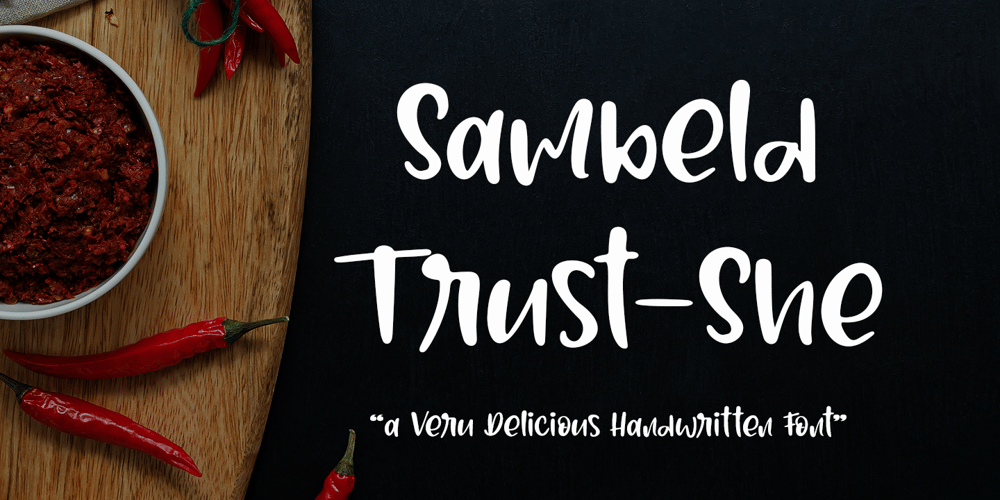
Sambeld Trust She Font Family was designed by Sarwo Edhi Prayitno and published by Haksen. Sambeld Trust She contains 1 styles and family package options. Sambeld Trust-She is a chic casual modern handwritten font. It is perfect for branding, signature, wedding invitation, promotion, product packaging, and other needs. You will get full set of lowercase and uppercase letters, numerals and punctuation, multilingual symbols that giving realistic hand-lettered style.Thanks and have a wonderful day,Haksen